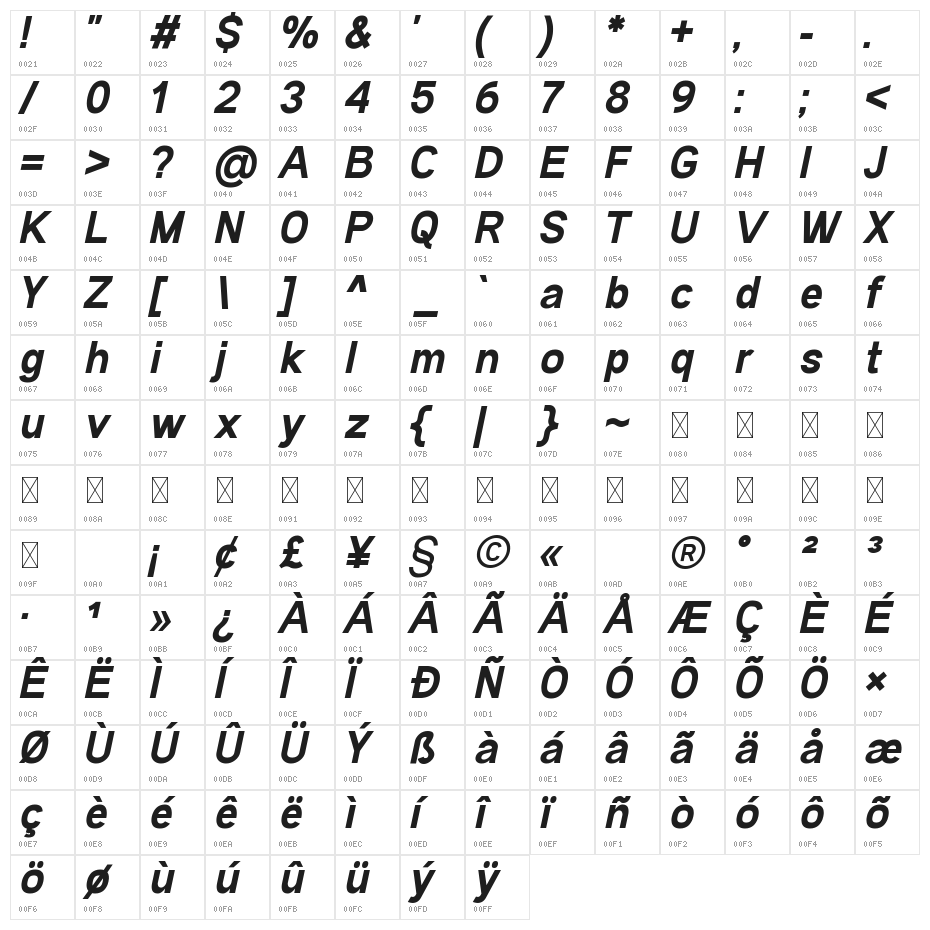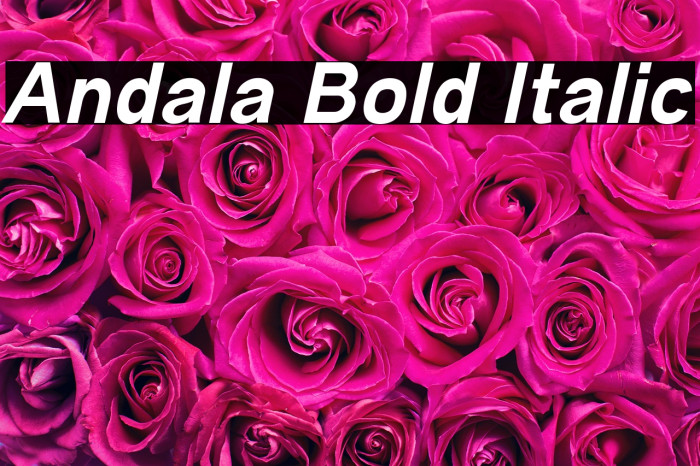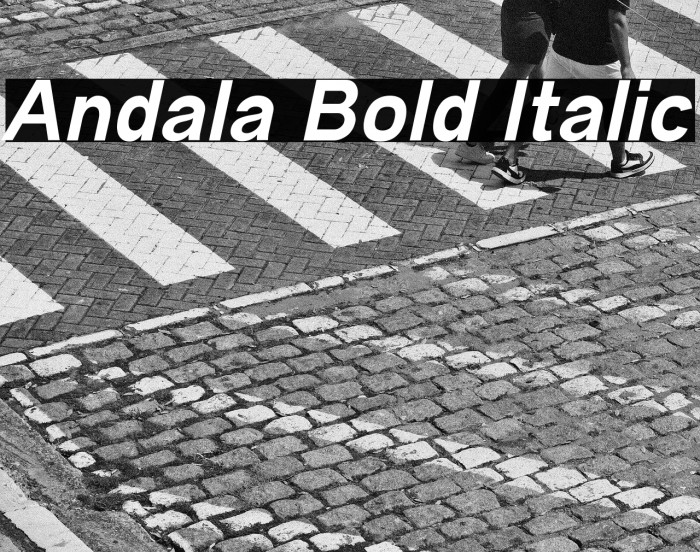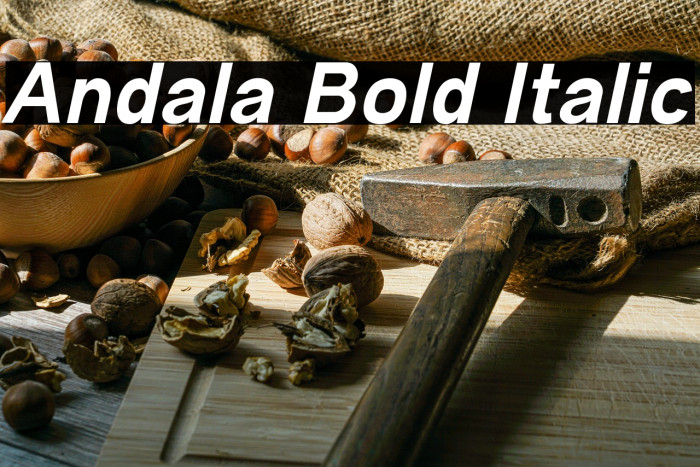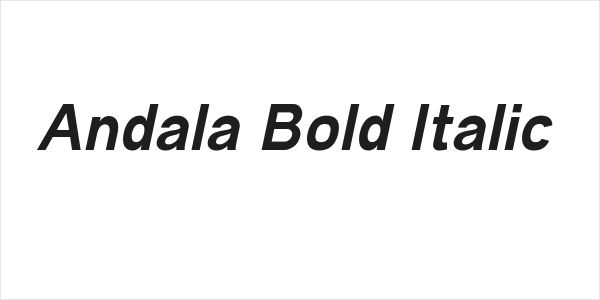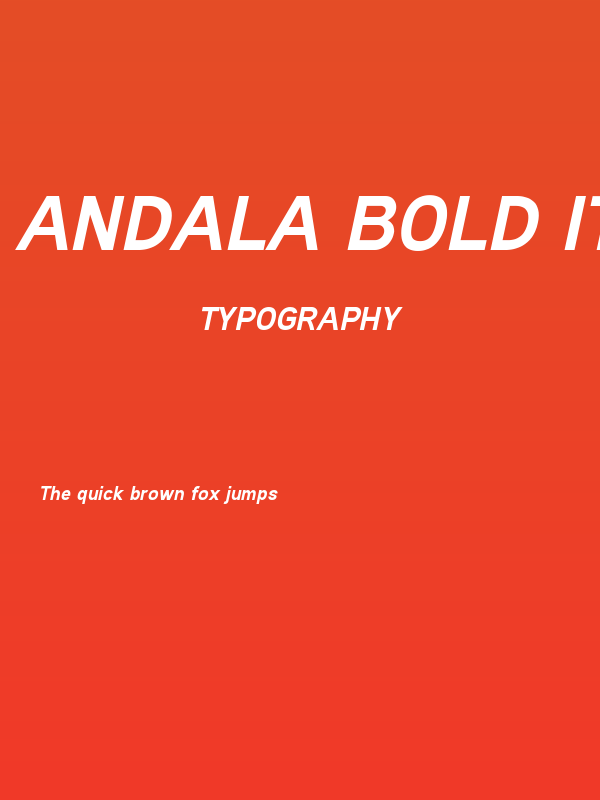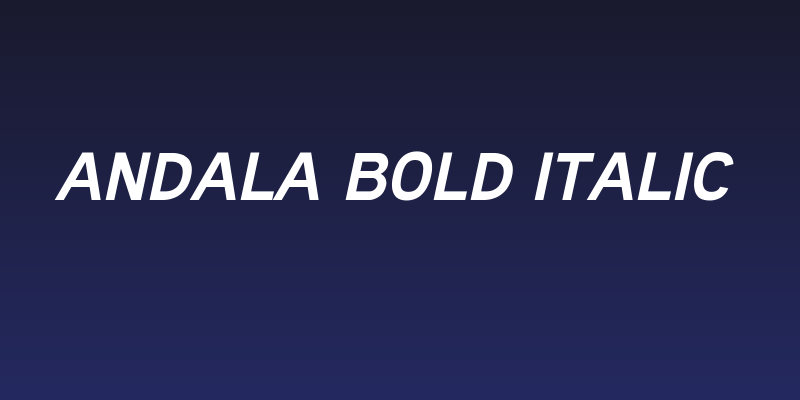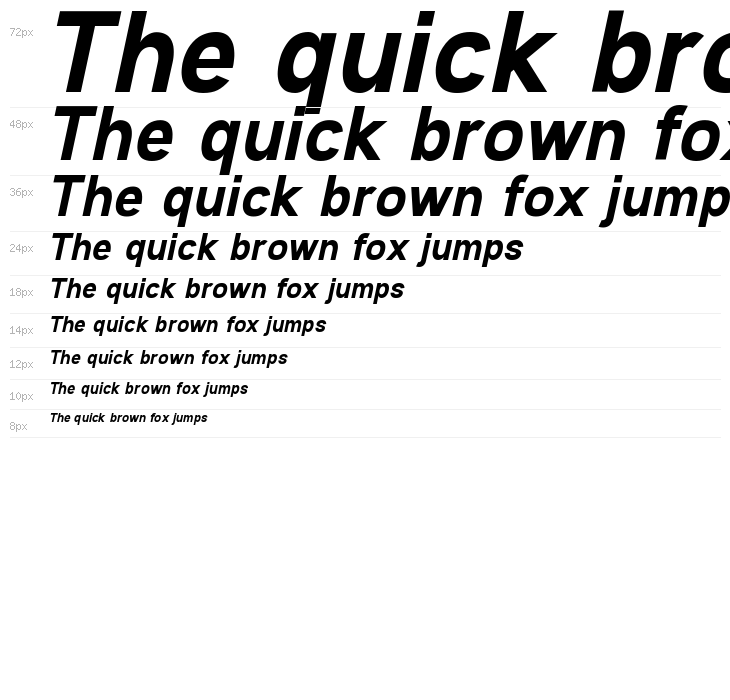
Andala Bold Italic Font
Andala Bold Italic Description
This font exhibits a bold and italicized style, characterized by its strong and assertive appearance. The letters are slightly slanted, adding a dynamic and forward-moving feel. The strokes are thick and consistent, providing a sense of stability and confidence. The uppercase and lowercase letters are well-proportioned, ensuring readability across various sizes. The numerals are clear and distinct, making them suitable for both display and text purposes. Special characters are well-integrated, maintaining the overall aesthetic of the font. This typeface is versatile, offering a modern yet timeless appeal.
| Proposed Projects | Ideal for branding, advertising, headlines, and digital media projects that require a bold statement. |